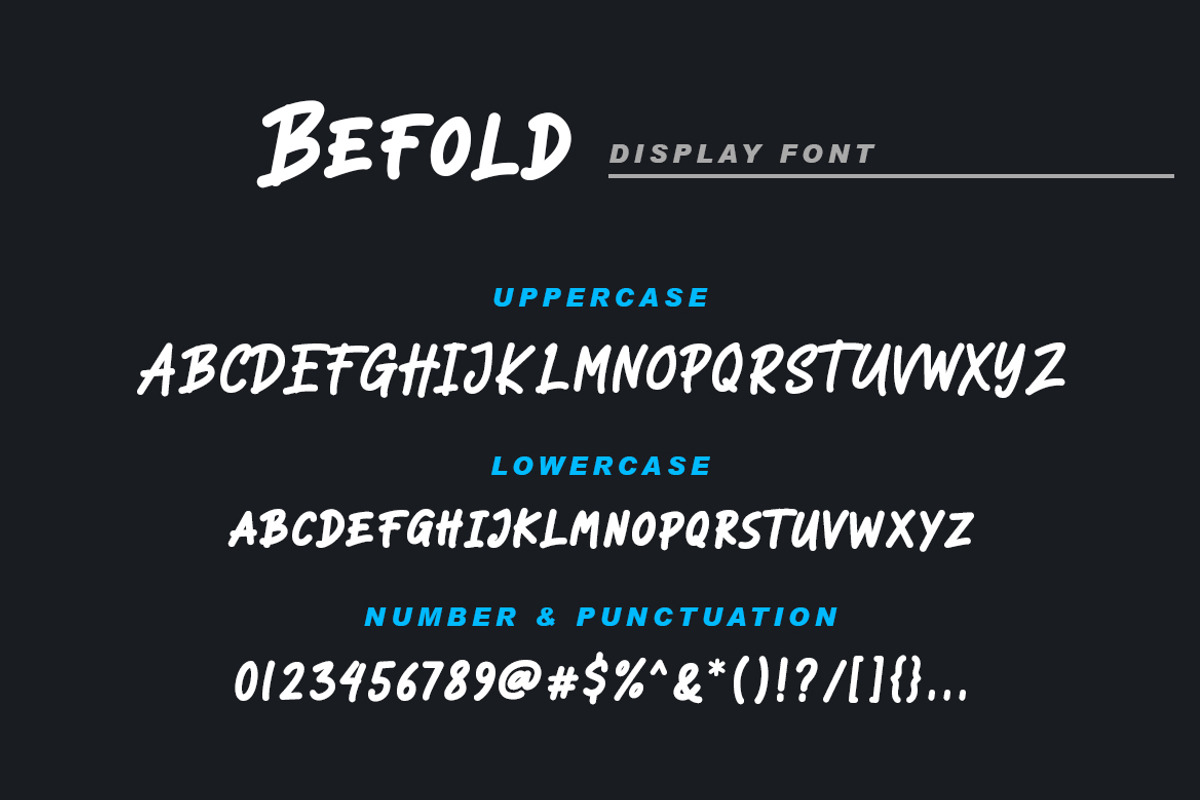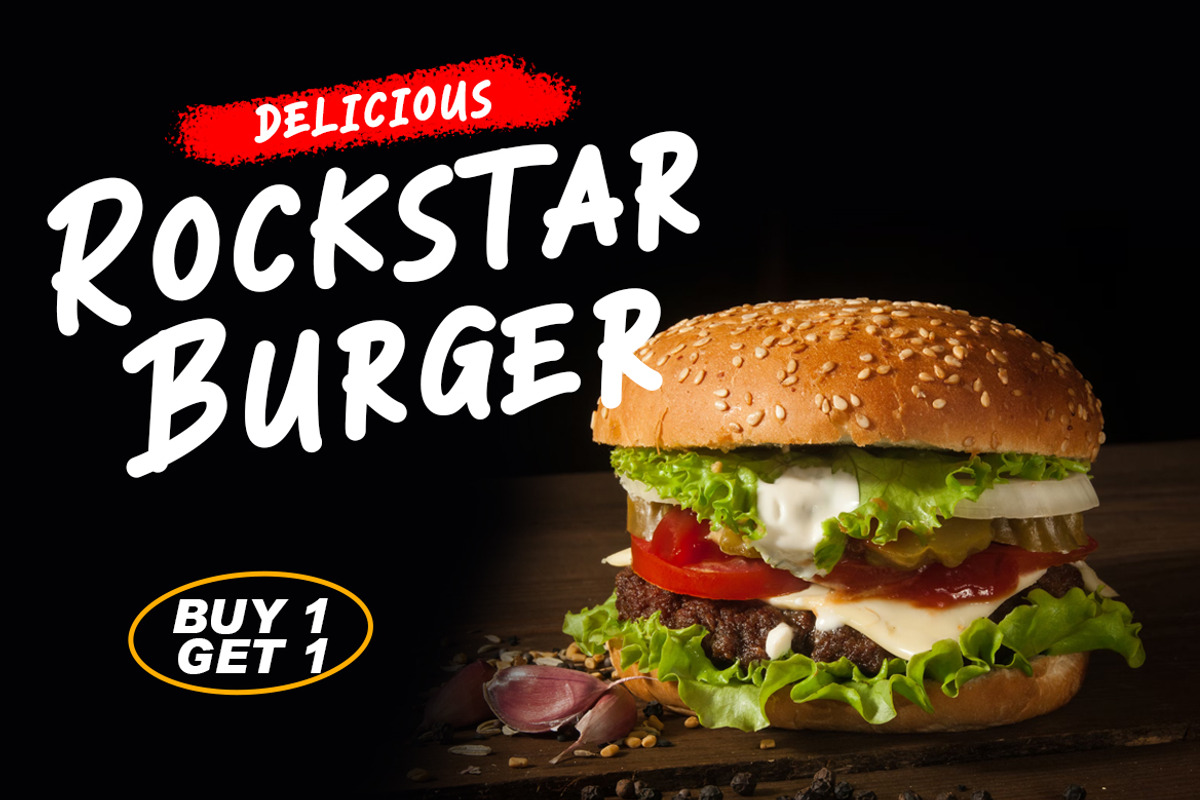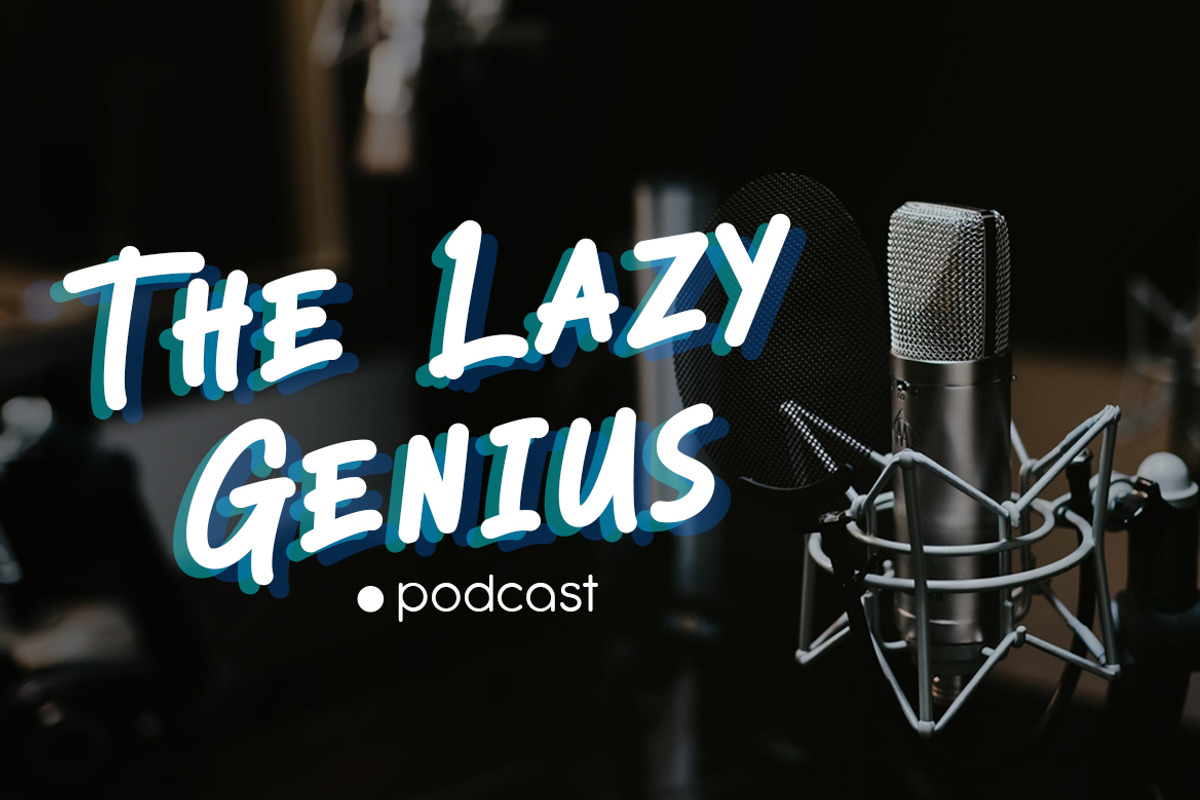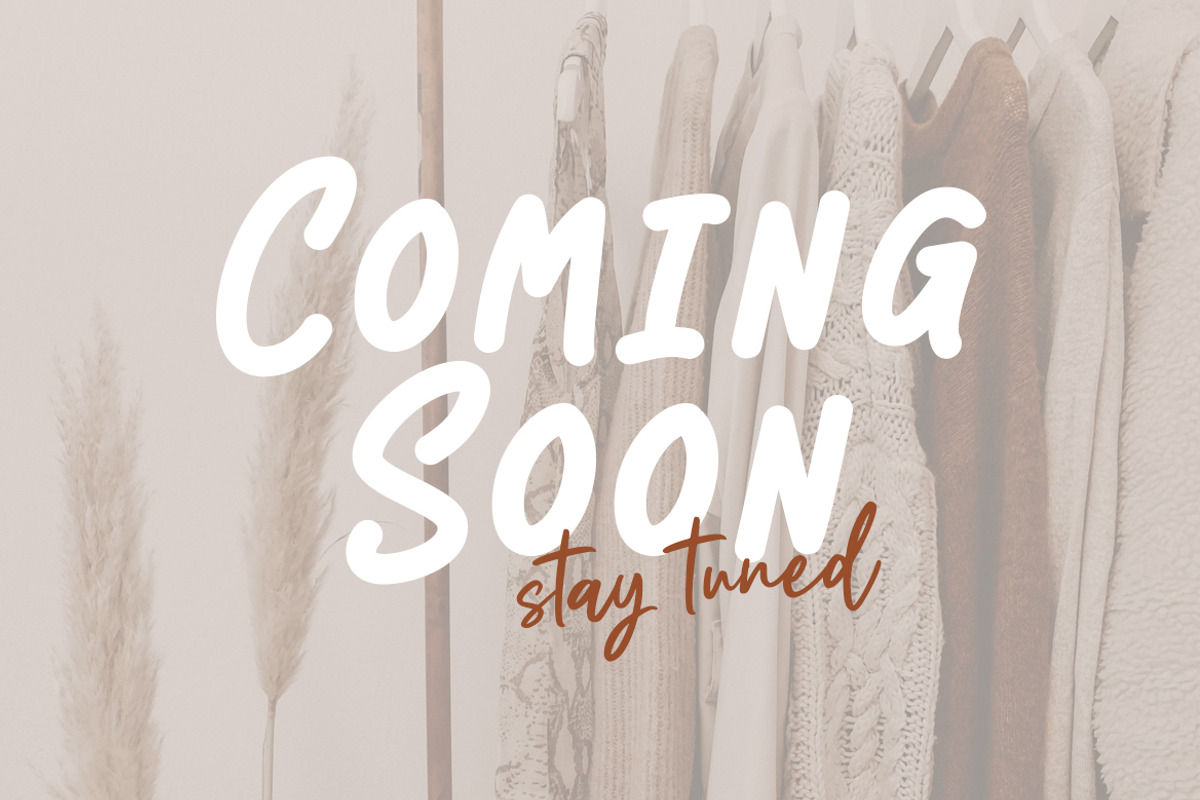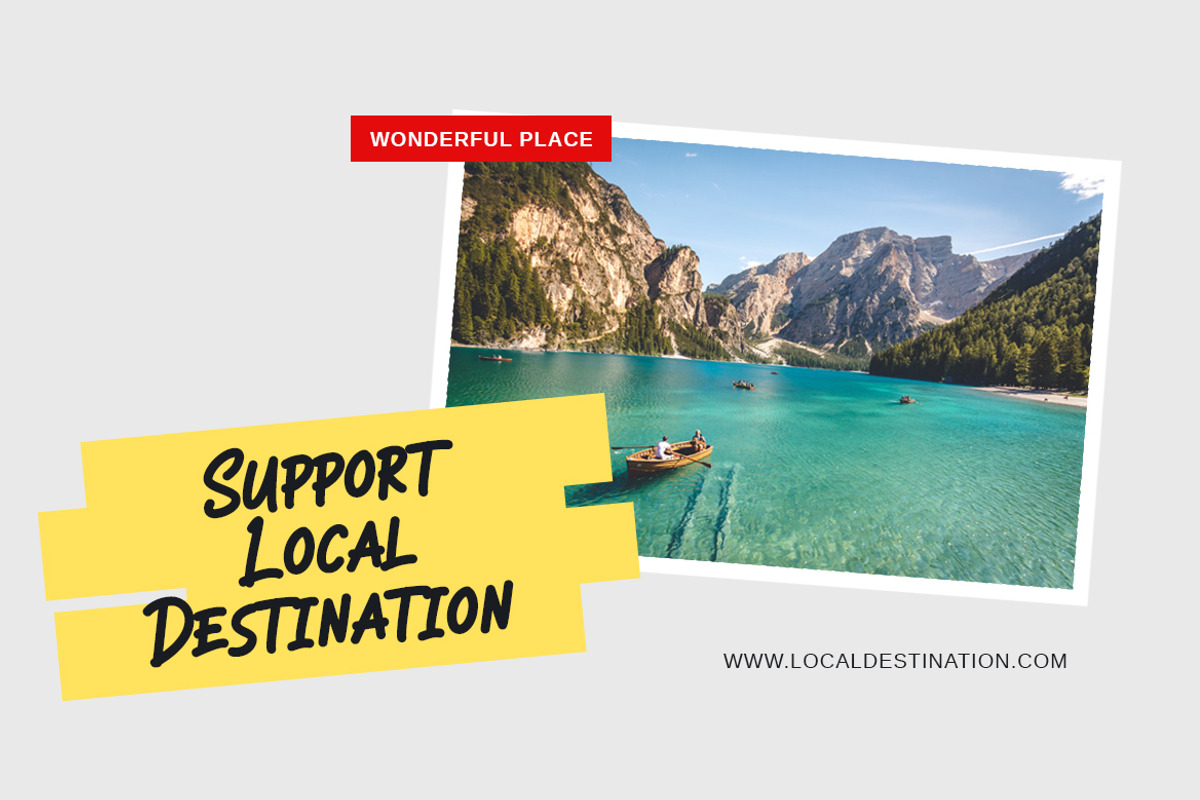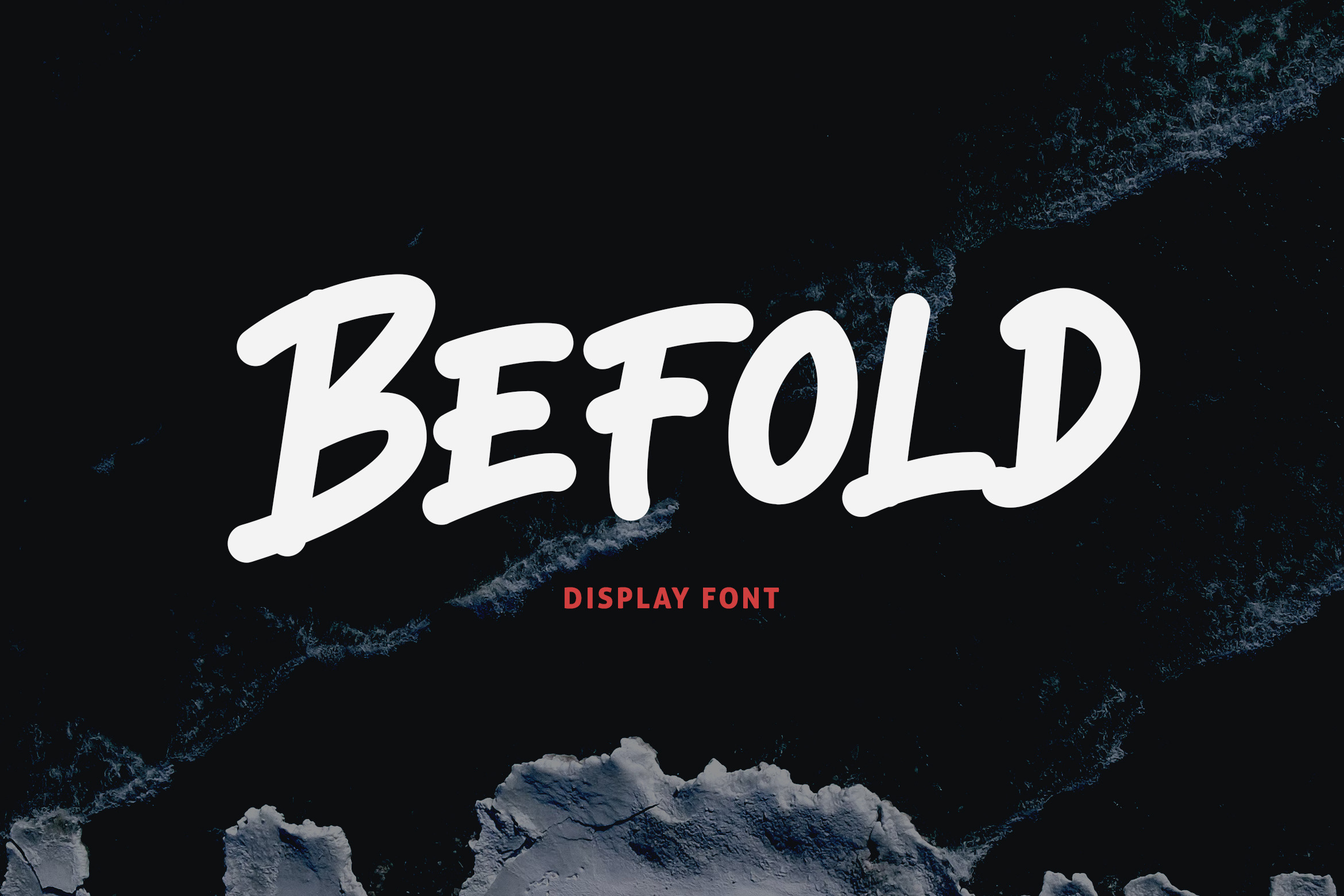
Befold - Display Font
Introducing Befold - Display Font, handwriting font with all caps style and bold. You can combine a unique uppercase and lowercase, so it looks like natural handwriting.
And this font perfect for signature, logo, branding, poster, band, apparel, photography, title, social media post, ad banner, book cover, product packaging, handwritten quotes, and advertising.
The font is all capital letter characters, numerals, multilingual support, and a large range of punctuation. With OTF, TTF, WOFF, WOFF2 format.